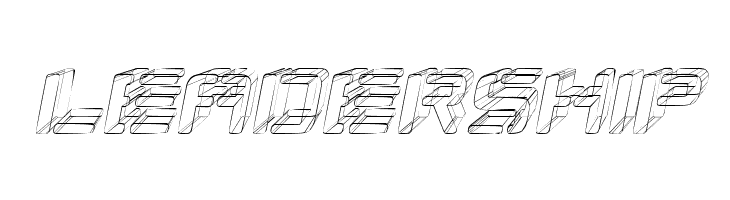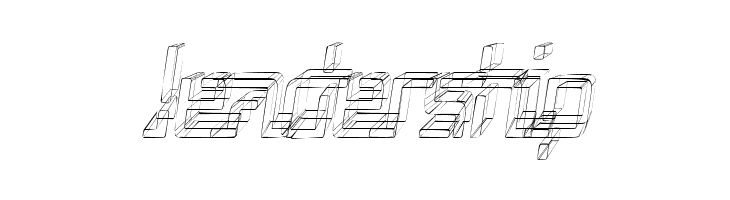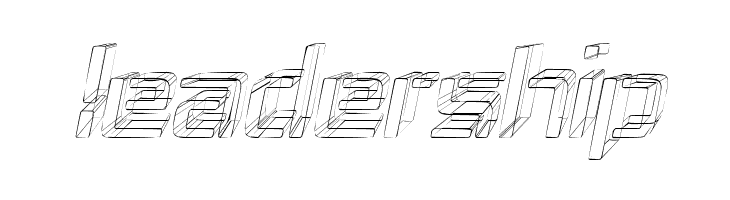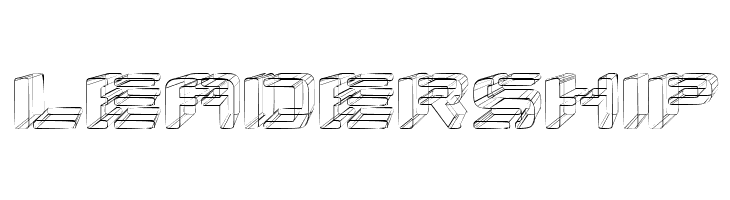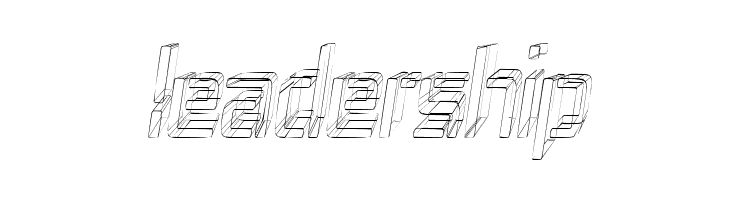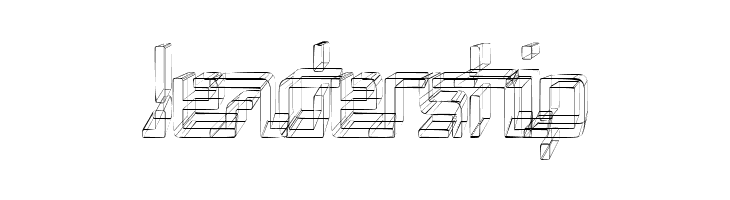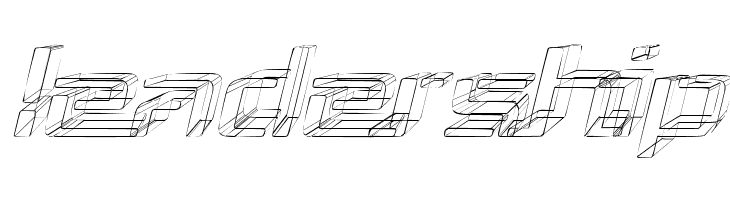
( M#rm#n - Mar Man )
A geometric, monospaced display font with a mechanical, architectural style.
A sketch-style italic font with a dynamic and artistic outline.
A bold, sketch-like font with a three-dimensional, futuristic design.
A bold, italicized, sketch-style font with an expanded, futuristic design.
A sketch-style, three-dimensional font with geometric and angular design.
A sketch-style italic font with geometric outlines and dynamic flair.
A sketch-style, three-dimensional font with geometric and modern characteristics.
A sketch-style, condensed italic font with a 3D outline effect.
A sketch-like, three-dimensional font with a futuristic and geometric style.
A dynamic, italicized font with a sketch-like, futuristic design.
A three-dimensional sketch font with a geometric, architectural style.
A sketch-style, italicized font with a three-dimensional, hand-drawn appearance.
A 3D sketch-style font with geometric, angular design and a modern industrial feel.
A sketch-style, condensed italic font with a modern and artistic flair.
A 3D sketch-style font with geometric, angular letterforms and intricate line work.
A sketch-style, italicized font with a futuristic and dynamic appearance.
A three-dimensional sketch-style font with dynamic, overlapping lines.
A sketch-style, 3D italic font with a dynamic and artistic appearance.
A 3D sketch-style font with geometric, angular letterforms and a dynamic appearance.
A 3D sketch-style italic font with a dynamic and artistic look.
A 3D sketch-style font with geometric precision and a hand-drawn aesthetic.
A dynamic, sketch-style italic font with bold, angular lines and a futuristic feel.
A sketch-style, three-dimensional font with a futuristic and technical look.
A futuristic, sketch-style italic font with a three-dimensional effect.
A sketch-like, three-dimensional font with a modern, geometric design.
A sketch-style, condensed italic font with a hand-drawn effect.
A sketch-style, three-dimensional font with geometric lines and a modern aesthetic.
A futuristic, sketch-style italic font with angular and overlapping lines.
A sketch-style, three-dimensional font with geometric and architectural elements.
A sketch-style italic font with a three-dimensional, hand-drawn effect.